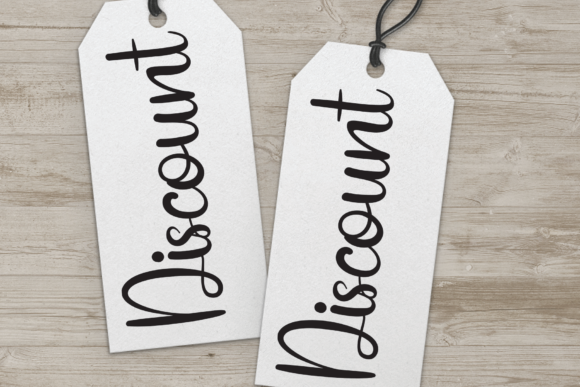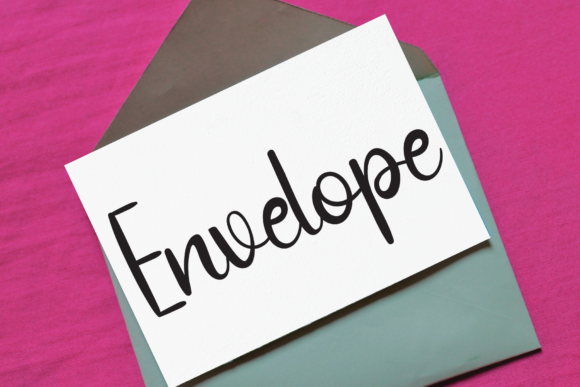
Orange Juice Font
db-ku.com - Script & Handwritten -- Orange Juice is a sweet handwritten font that was crafted with great care to produce the expected results. It has a beautiful and balanced character, that fits well with the large design pool.